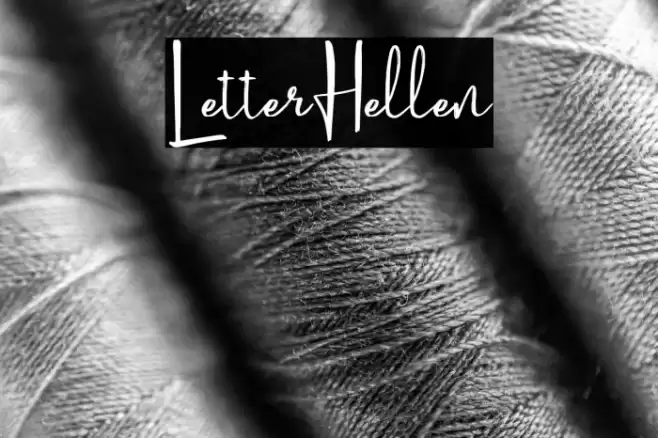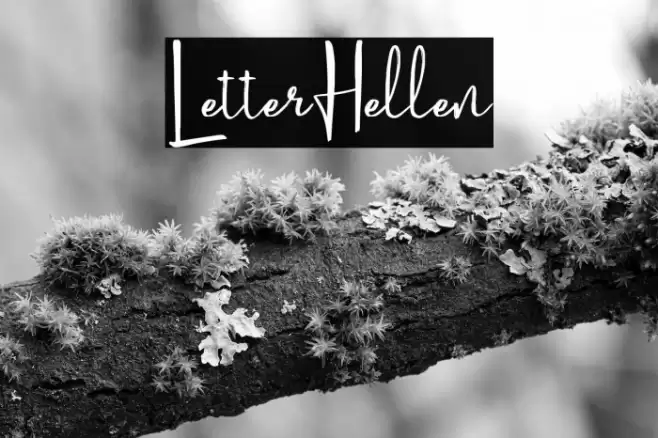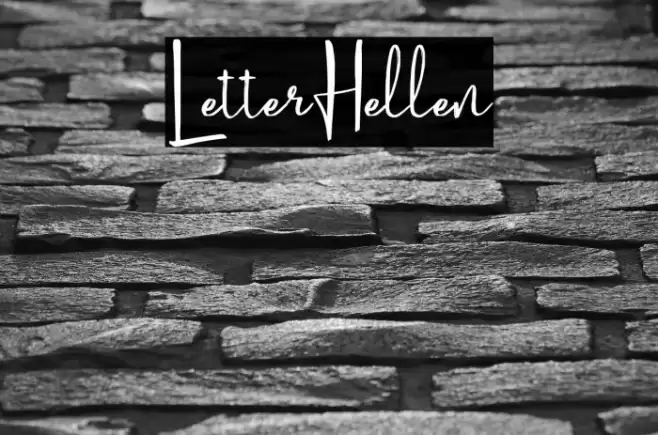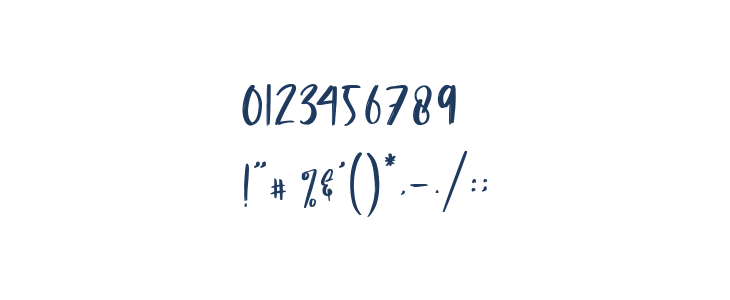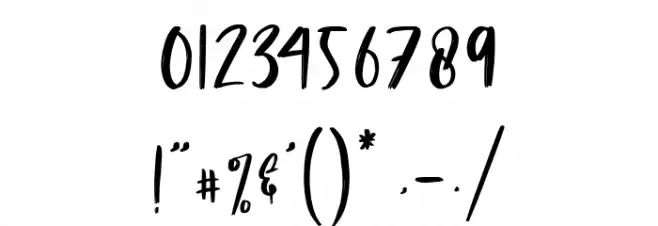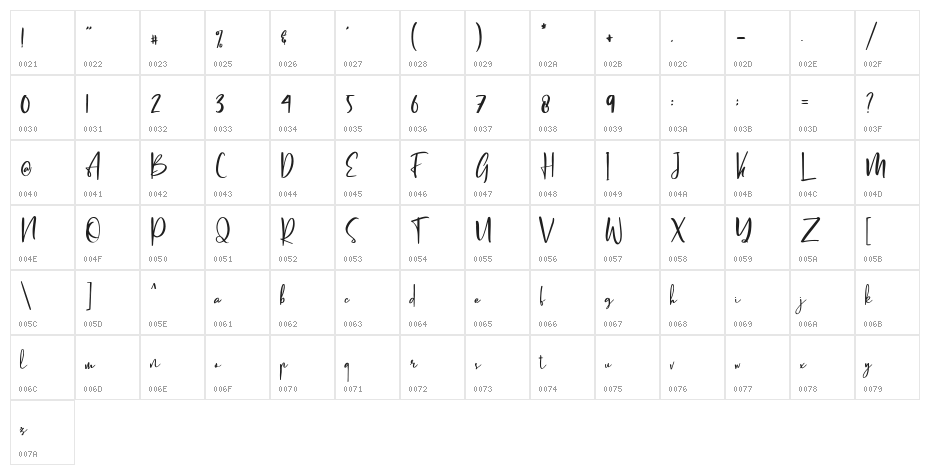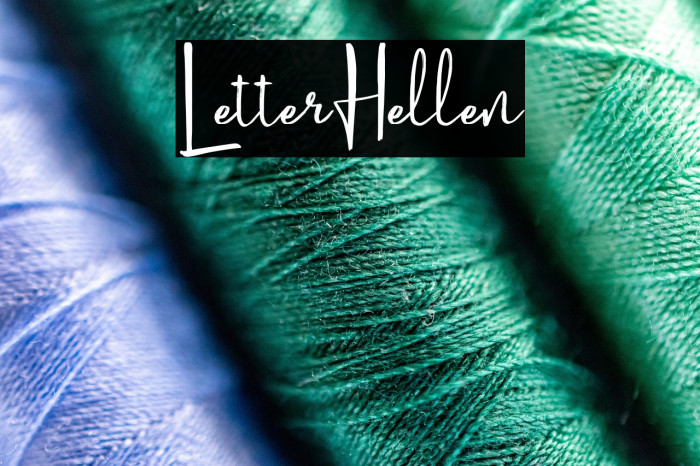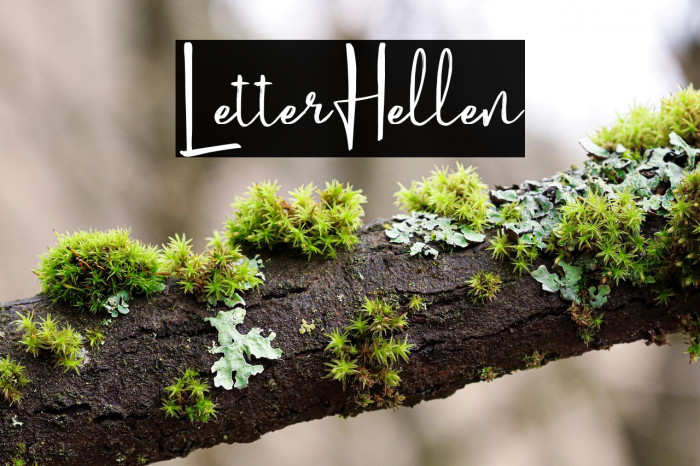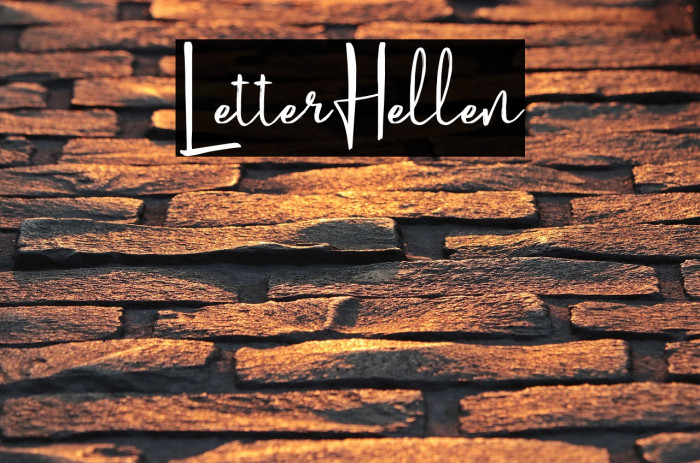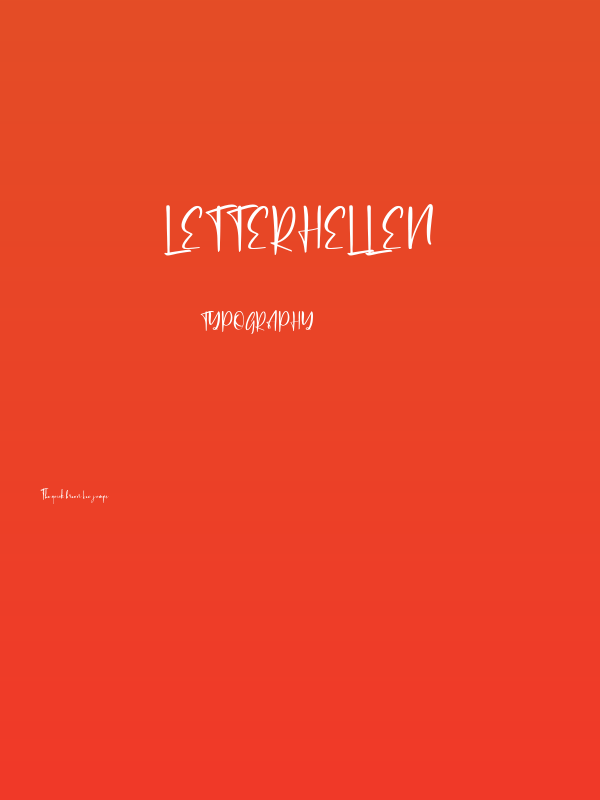
LetterHellen Font
LetterHellen Description
This font features a playful and energetic handwritten style, characterized by its fluid and dynamic strokes. The uppercase letters are bold and slightly elongated, giving them a distinctive presence. The lowercase letters maintain a consistent flow, with some characters exhibiting unique loops and curves that add to the font's charm. The numerals are clear and legible, matching the overall lively aesthetic. Special characters are creatively designed, maintaining the font's whimsical nature. This font's style is perfect for projects that require a personal touch, conveying a sense of creativity and spontaneity.
A playful and energetic handwritten font with dynamic strokes and unique character designs from Regular fonts.
- Proposed Projects: Ideal for greeting cards, invitations, branding projects, and social media graphics where a personal and creative touch is desired.
- Use Case: Logos, Headlines, Invitations